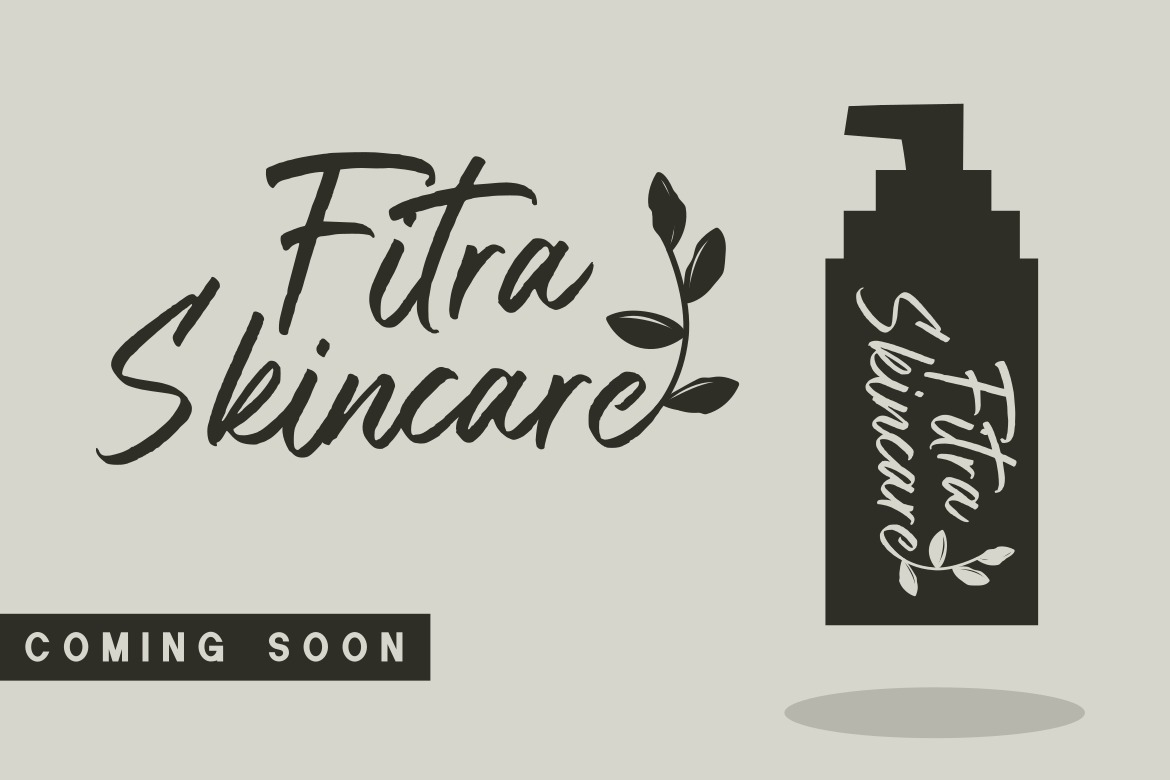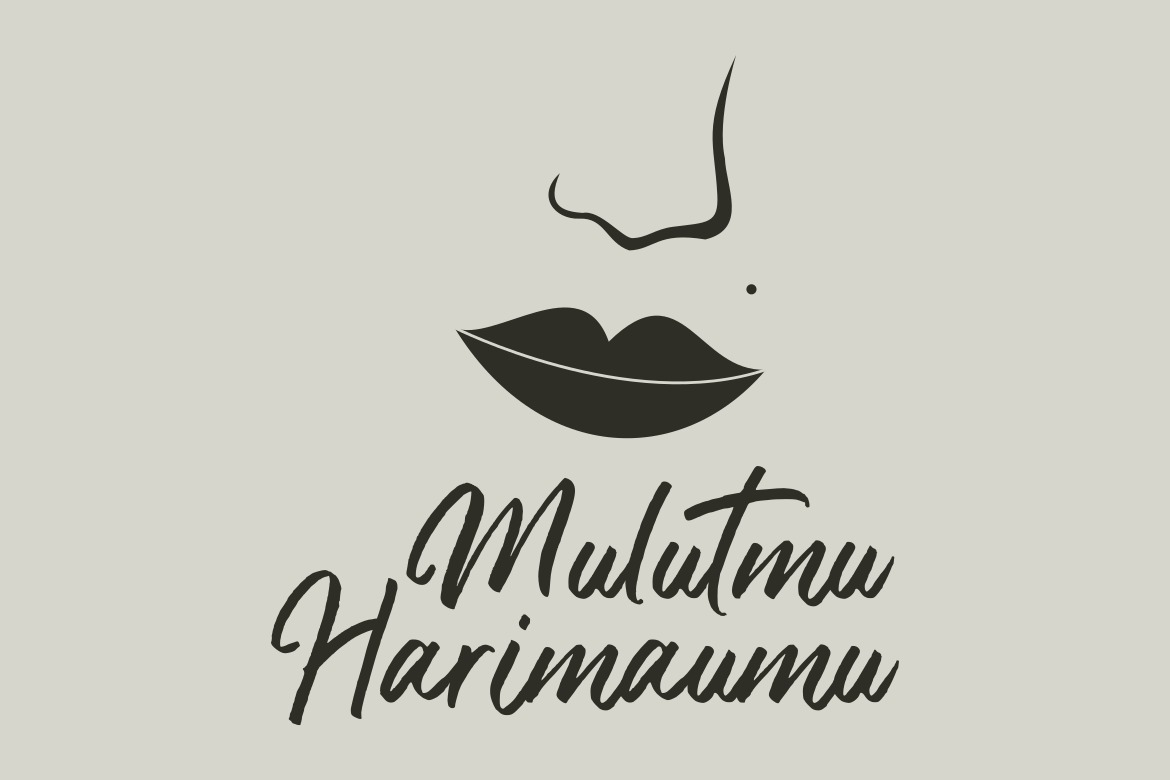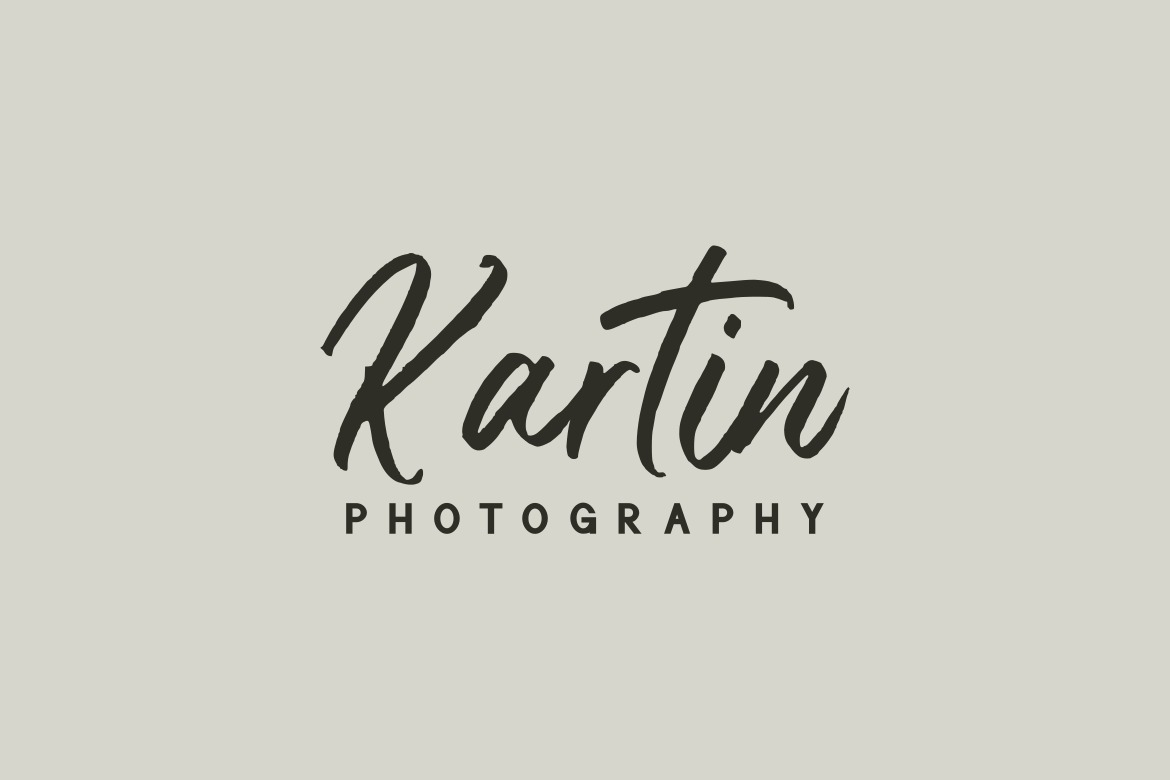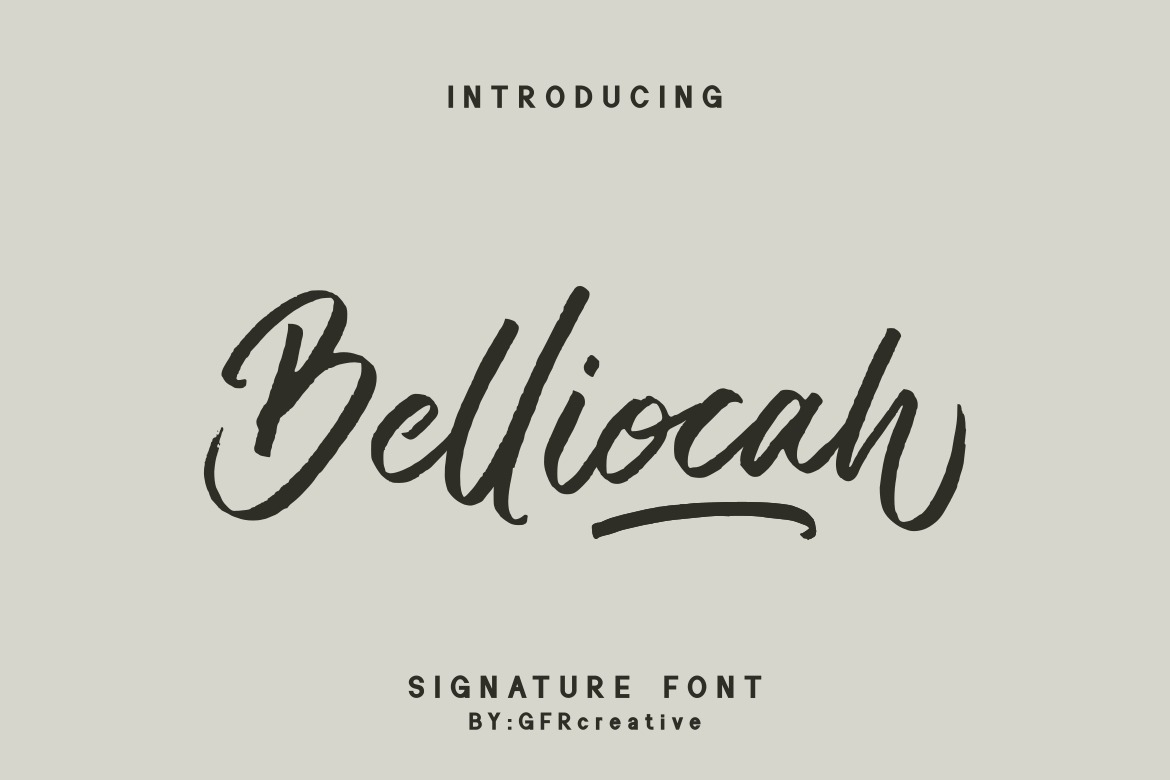
Belliocah Brush Font
It’s a new stylish brush script font manufactured by GFRcreative. A great font to use in many ways for your latest project.
Perfect for logos & branding, photography, invitations, watermarks, advertising, product design, stationery, wedding designs, labels, product packaging, special events, or anything else that requires Signature content.